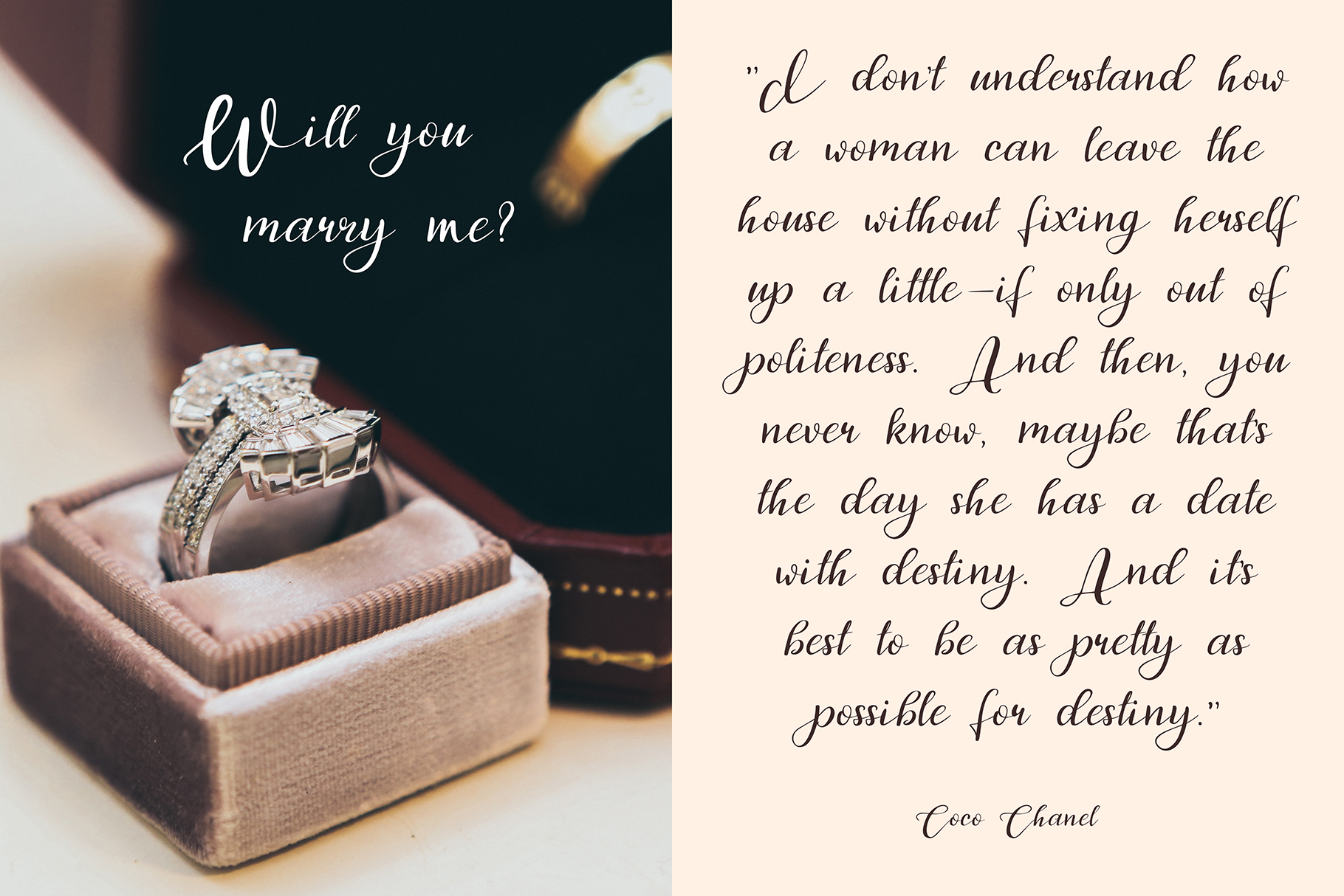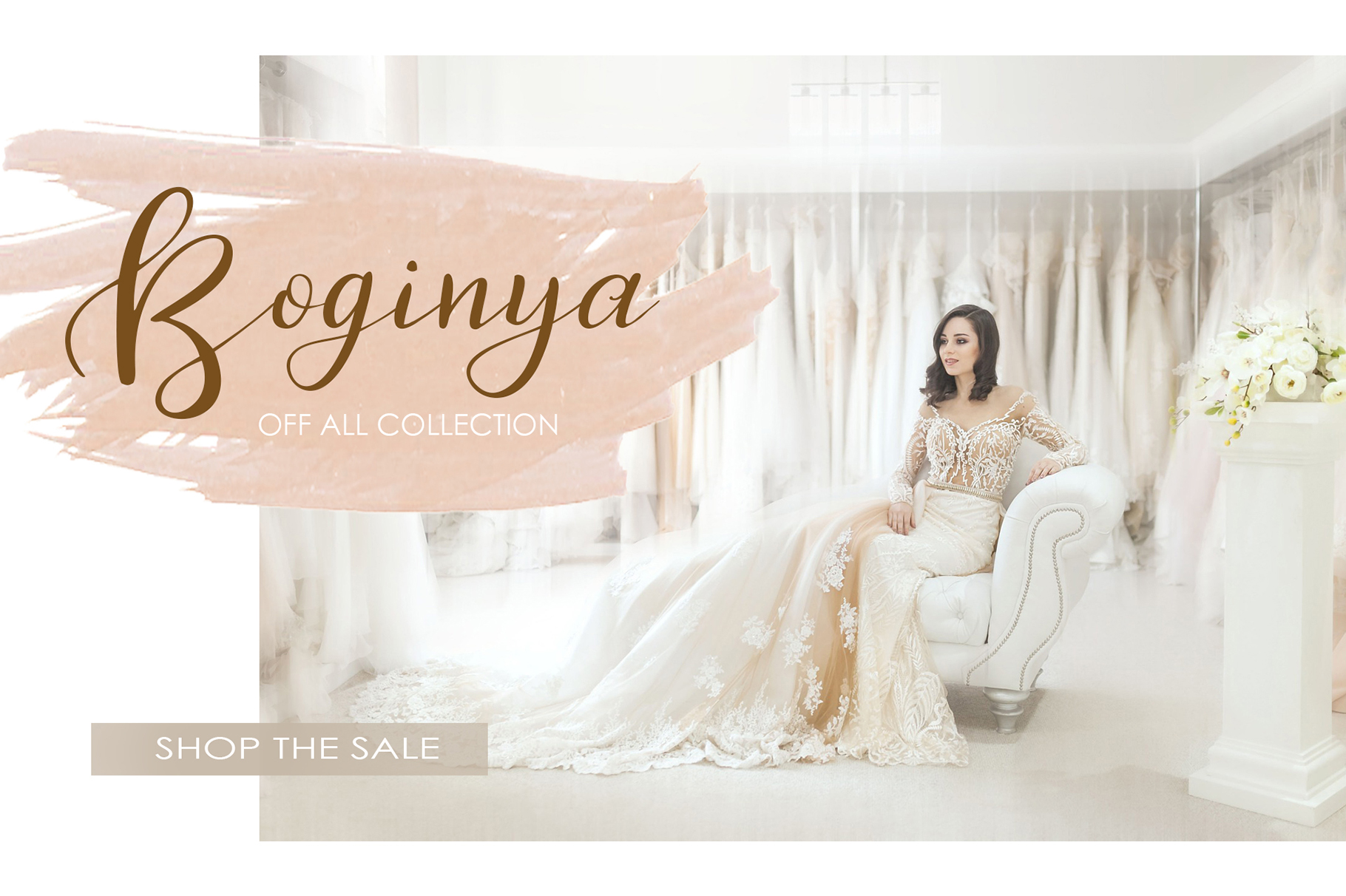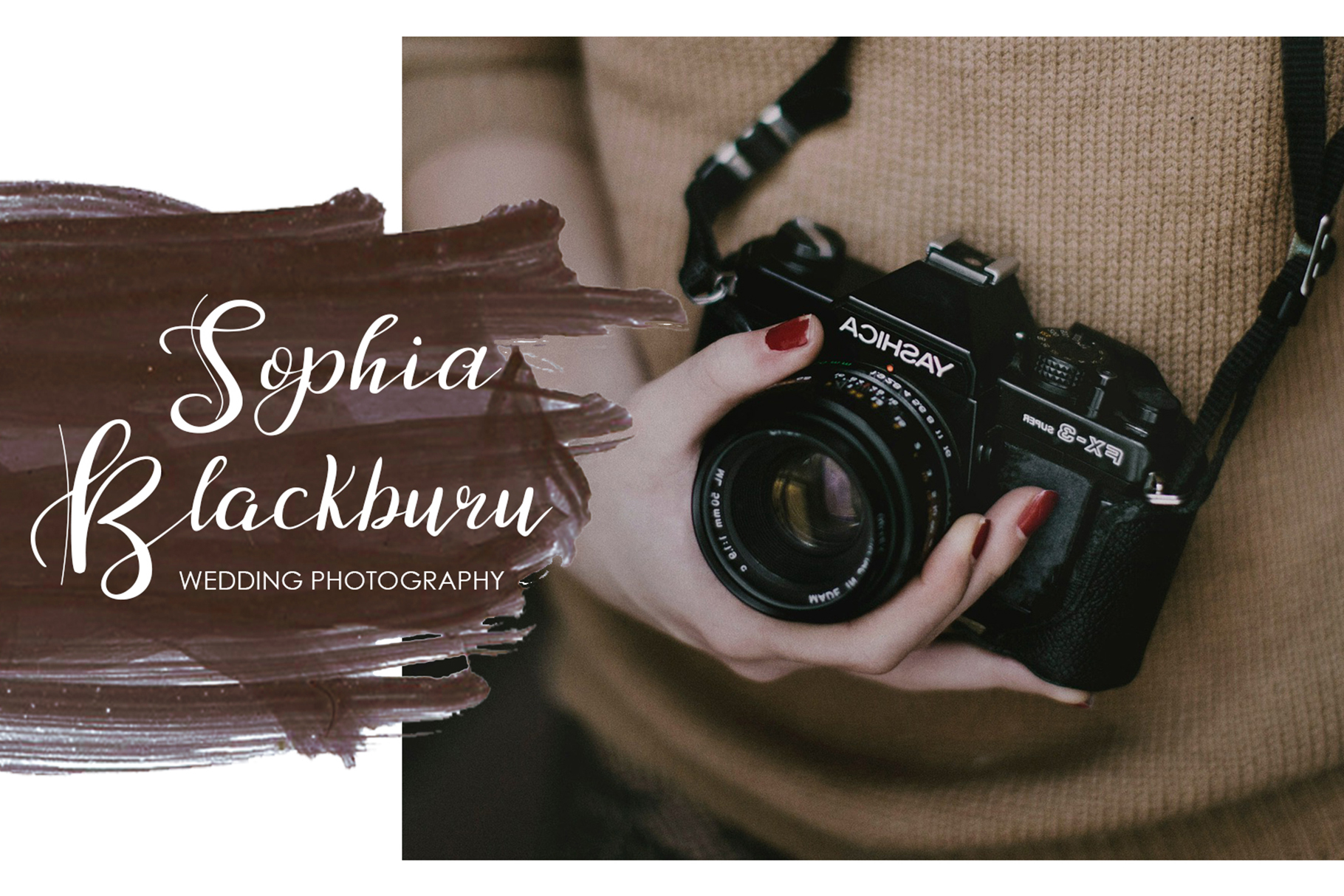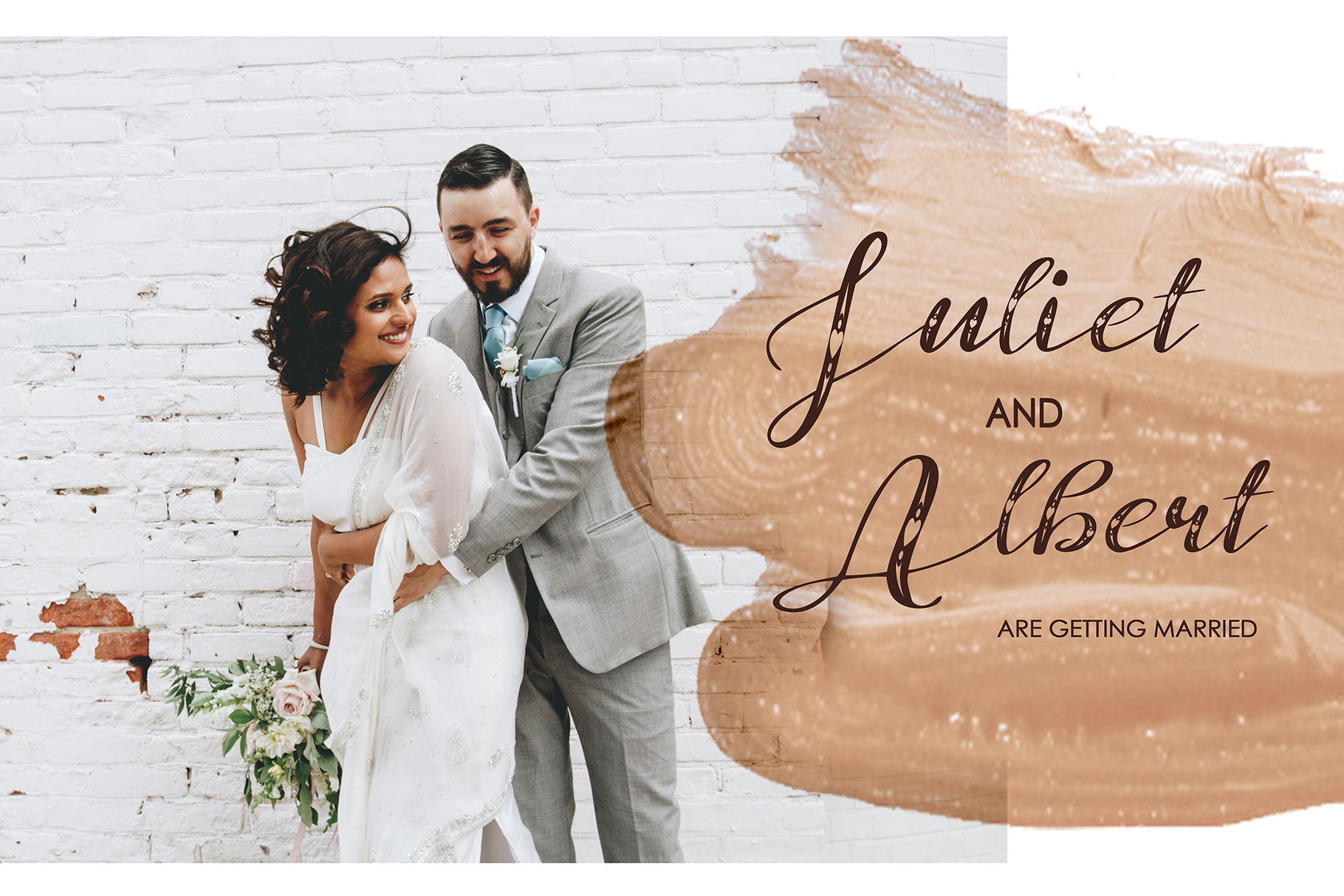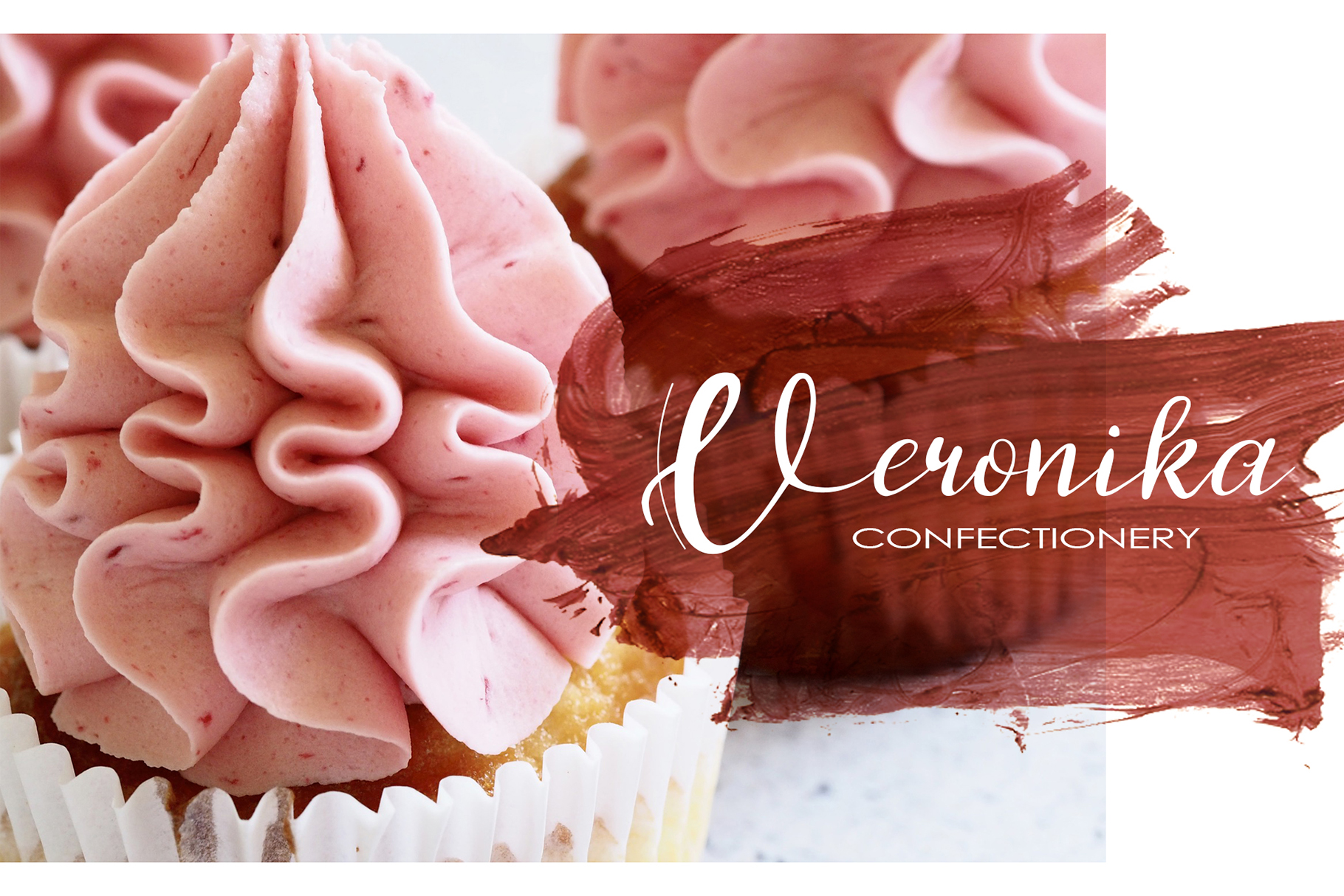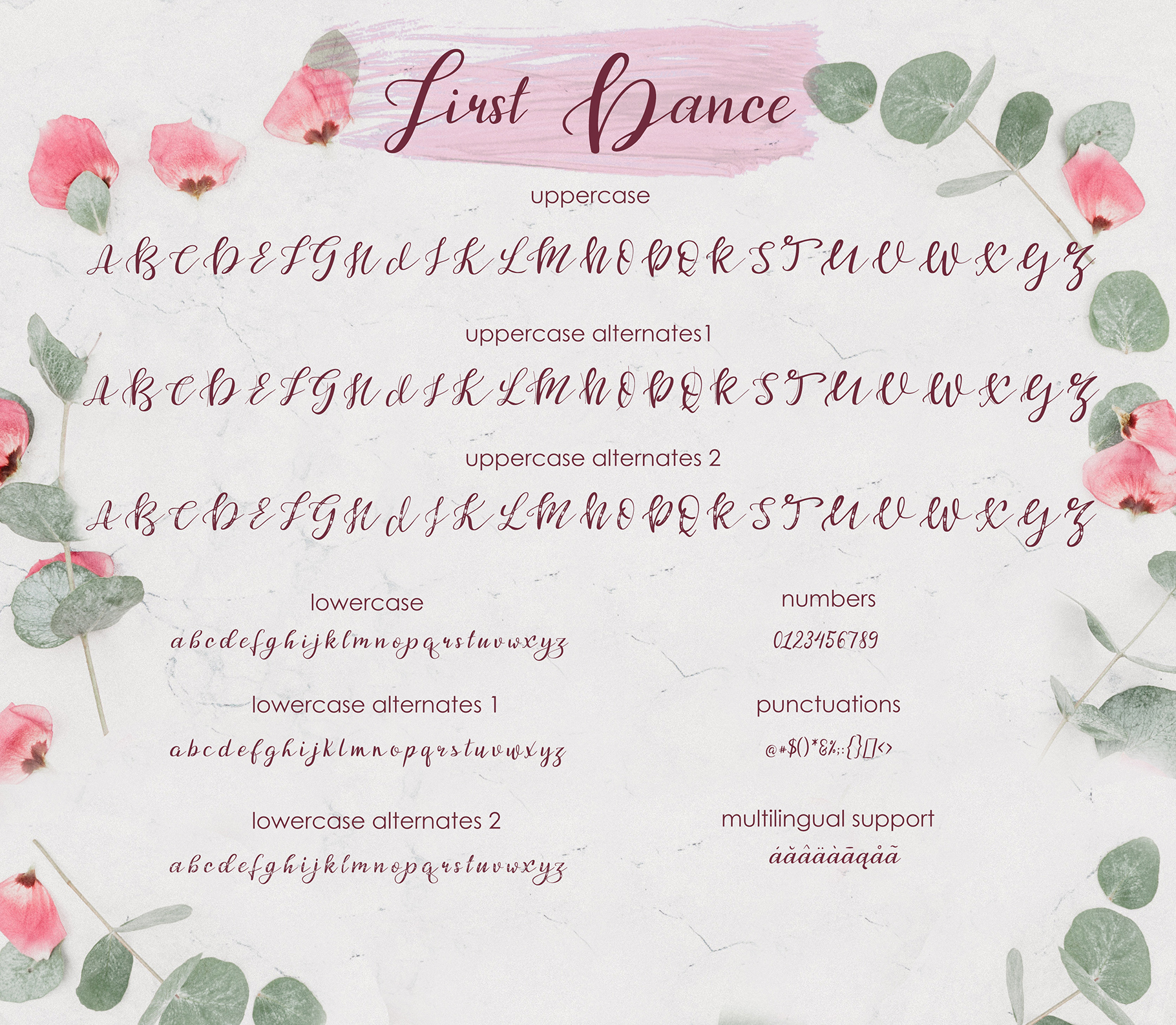
Introduction to First Dance Font
First Dance is a wonderfully evocative and romantic font, one that can be used with ease to add some rural charm to your designs.
This script has a variable baseline and looks great when combined with soft and ethereal designs .
Key Features of First Dance Font